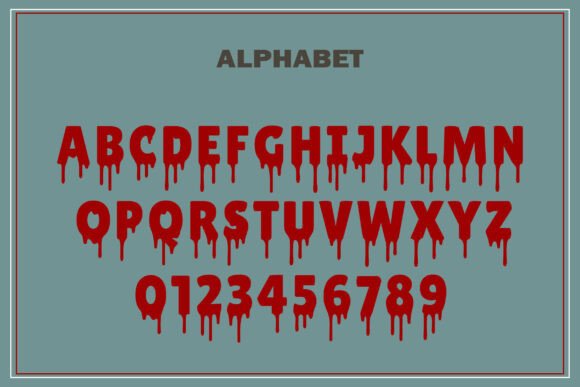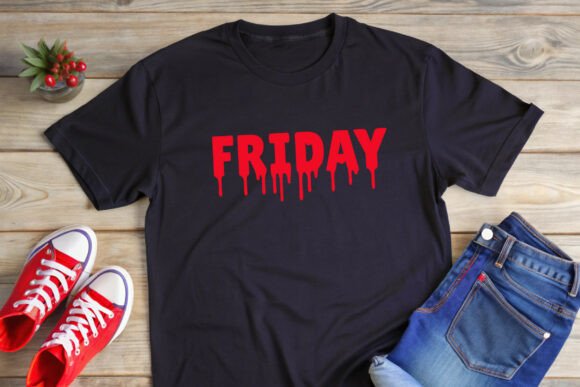
The Blood Drip Font: A Spooky Design Essential
The Blood Drip font is a bold and dramatic decorative font inspired by dripping liquid effects. Its flowing shapes create a chilling and eye-catching look, perfect for adding intensity and suspense to your designs. In this article, we’ll dive into the world of Blood Drip, exploring its features, how to use it, and some similar fonts you might love.
• ✨ The Blood Drip font is incredibly versatile, making it perfect for a wide range of projects, from Halloween-themed designs to horror movie posters.
• ✅ The font’s dripping liquid effects add a level of realism that’s hard to achieve with other fonts.
• 💡 The font comes with a range of OpenType features, including glyphs and stylistic alternates, giving you plenty of creative freedom.
⚠️ One thing to note is that the Blood Drip font can be a bit overpowering if not used carefully. It’s essential to balance it with other design elements to avoid overwhelming your audience.
🤔 Some users might find that the font’s dripping effects can be a bit tricky to work with, especially when it comes to kerning and spacing.
The Designer Inspiration Behind Blood Drip
The Blood Drip font was inspired by the dark and mysterious world of horror movies and haunted houses. The designer wanted to create a font that would evoke a sense of fear and suspense, while also being visually striking and eye-catching.
Legend has it that the designer spent hours pouring over horror movies and haunted house attractions, taking note of the creepy typography and signage that seemed to leap out at visitors. The result was the Blood Drip font, a bold and dramatic decorative font that’s perfect for adding intensity and suspense to your designs.
Q: What type of projects is Blood Drip best suited for?
A: Blood Drip is perfect for Halloween-themed designs, horror movie posters, haunted house attractions, and any project that requires a spooky and atmospheric font.
Q: Is Blood Drip easy to read?
A: Blood Drip is a decorative font, and while it’s eye-catching, it may not be the most readable font for body text. It’s best used for headings, titles, and short phrases.
Q: Can I customize Blood Drip?
A: Yes, Blood Drip comes with a range of OpenType features, including glyphs and stylistic alternates, which allow you to customize the font to suit your design needs.